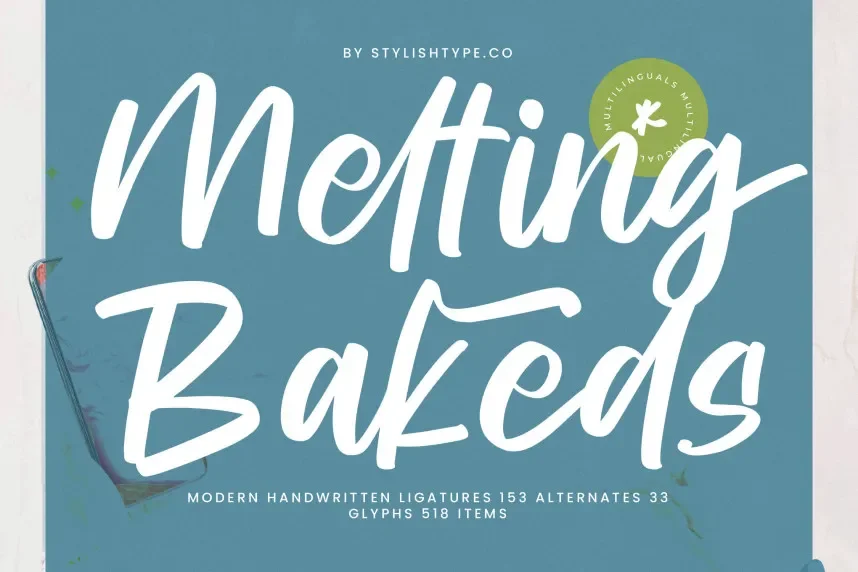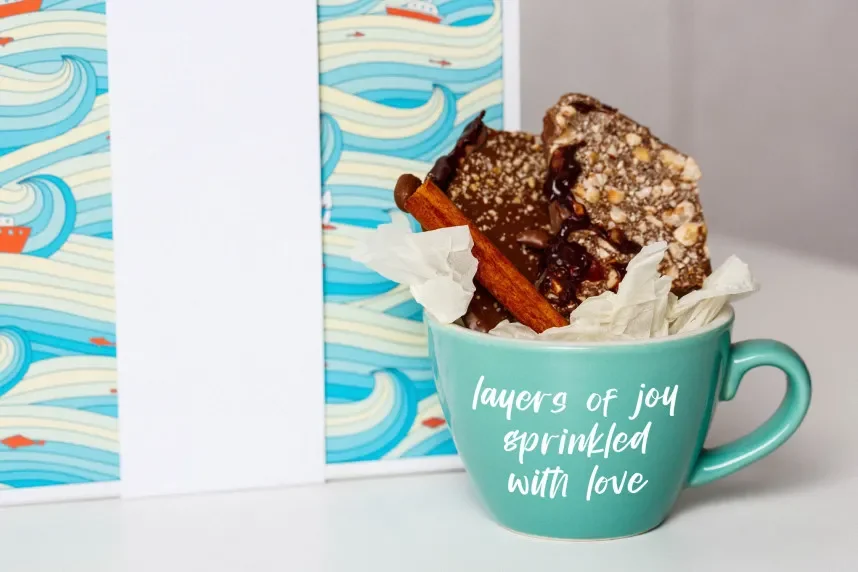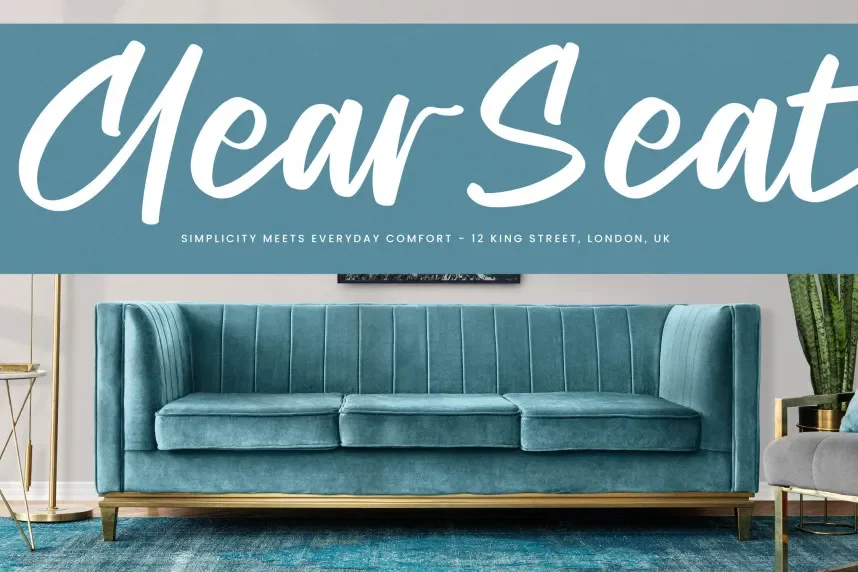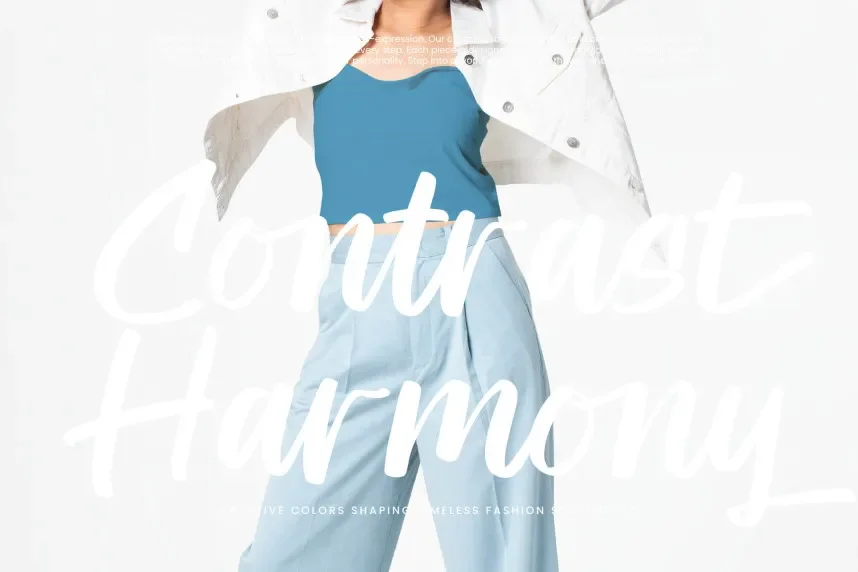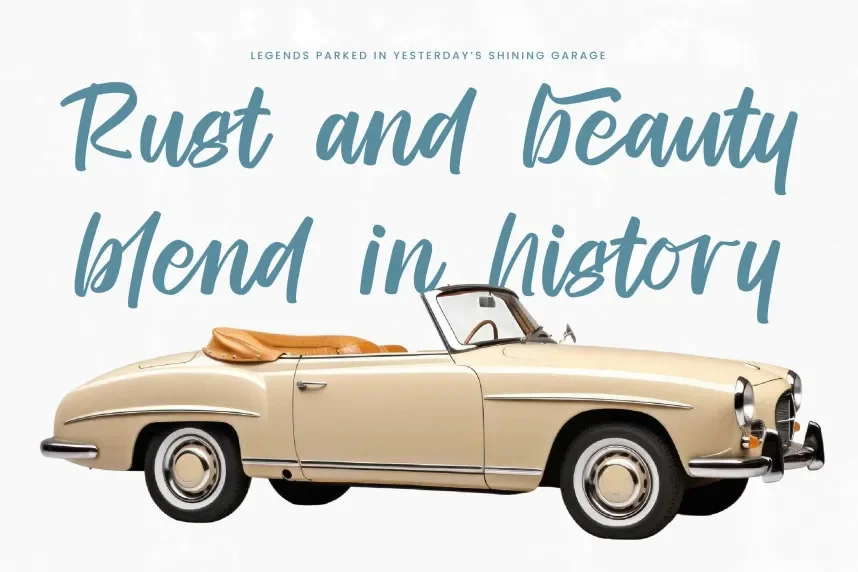
Melting Bakeds Font is a modern handwritten typeface created for relaxed branding and informal design needs. Many handwritten fonts feel rushed or unreadable at small sizes. Melting Bakeds avoids that issue by maintaining consistent character shapes and controlled line flow.
This font belongs to the handwritten script category. Its letterforms show rounded curves, smooth connections, and moderate stroke variation. Ascenders and descenders are well-balanced, improving legibility in both digital and print formats. The writing style feels casual but structured.
Melting Bakeds works well for personal branding, social media captions, product labels, greeting cards, and casual invitations. Designers usually pair it with a clean sans-serif for longer text blocks to preserve readability.